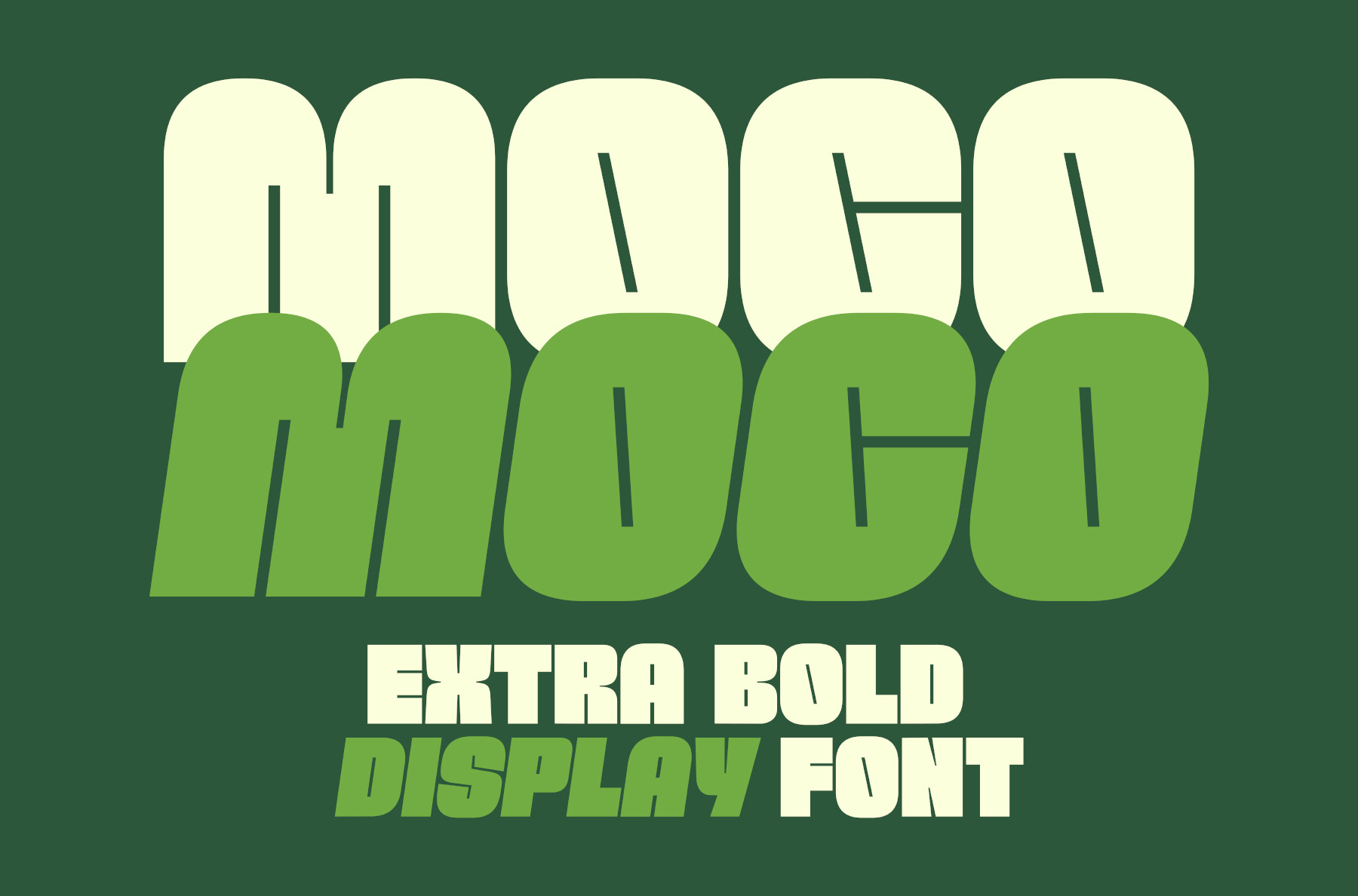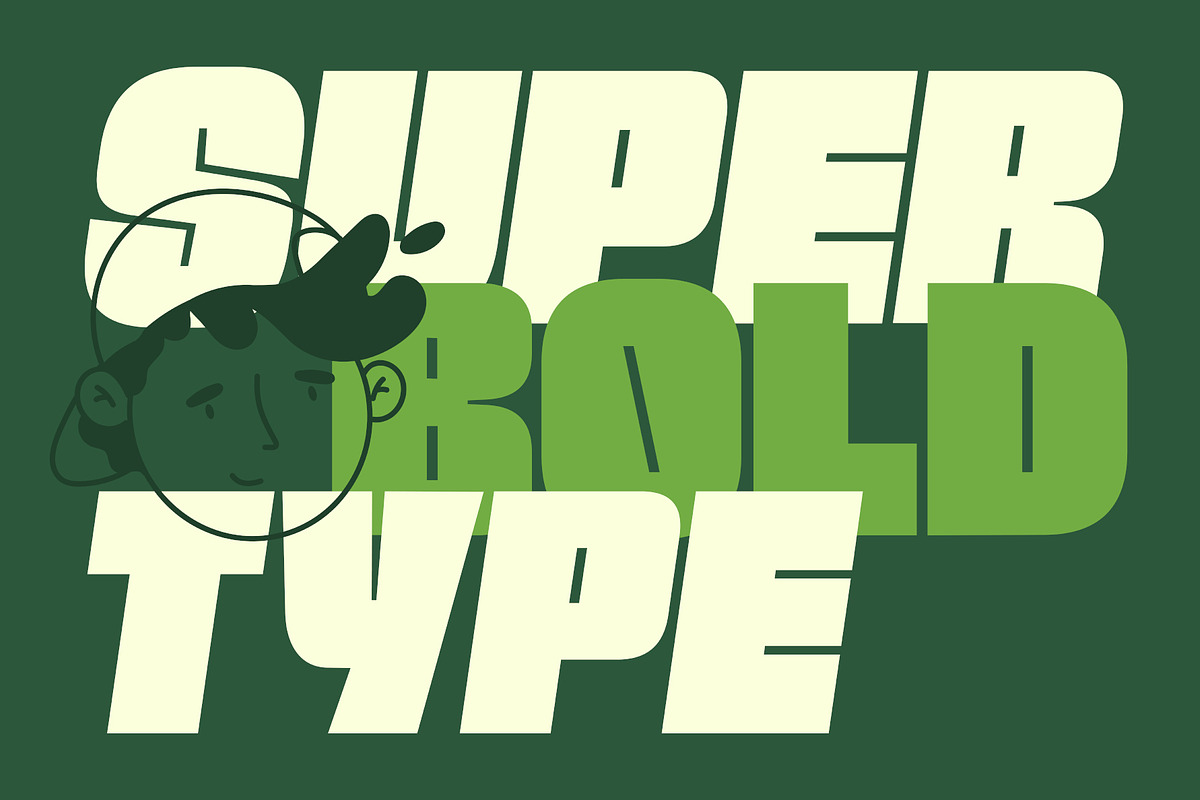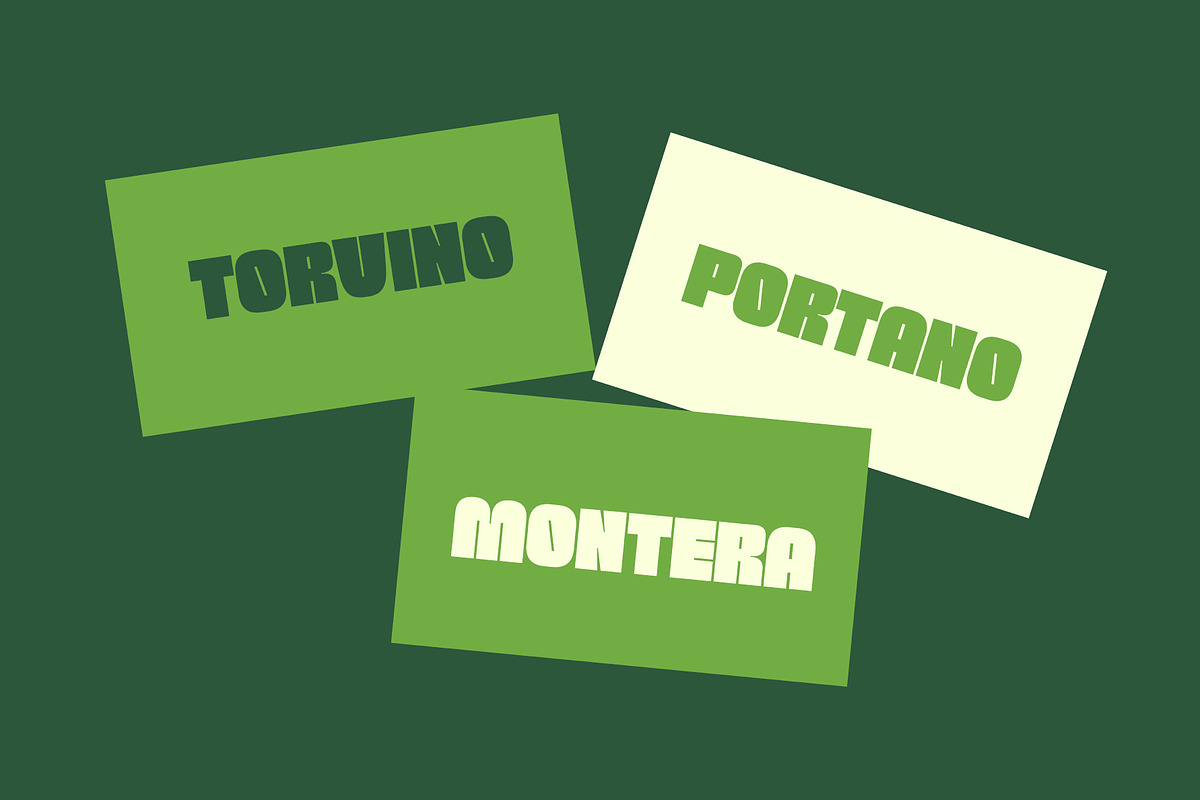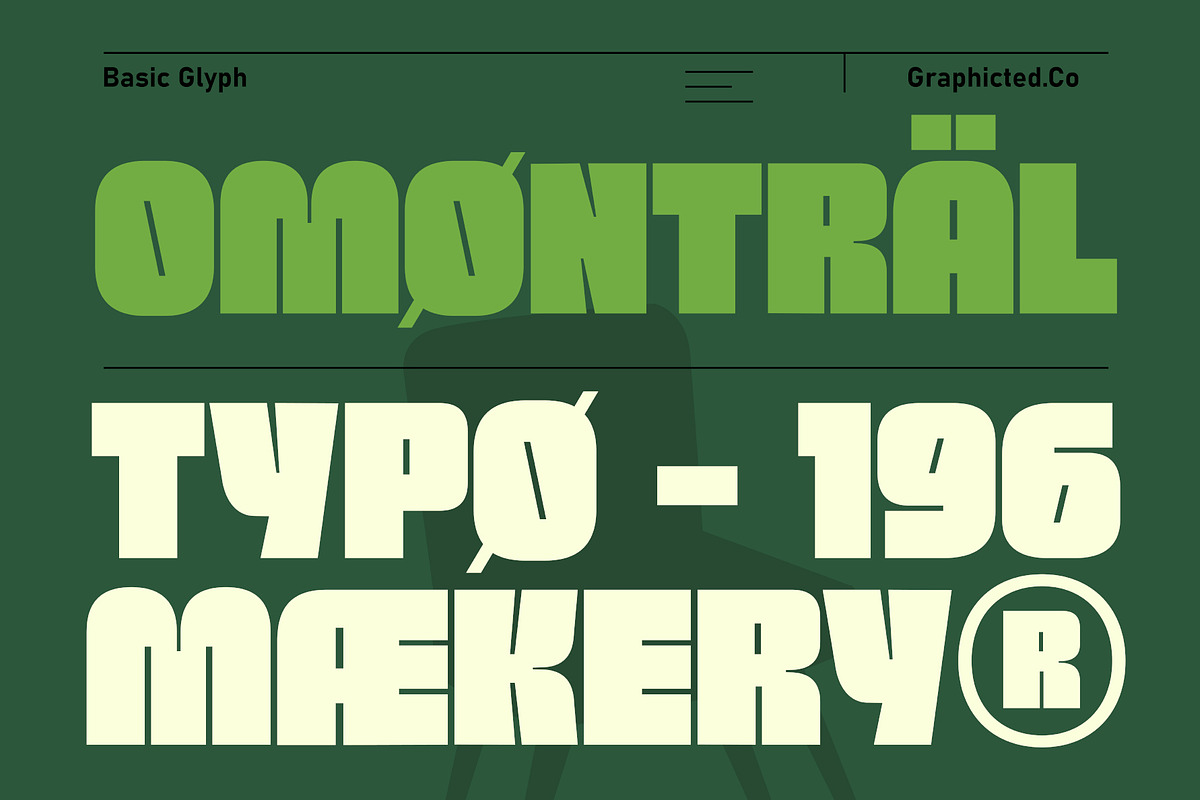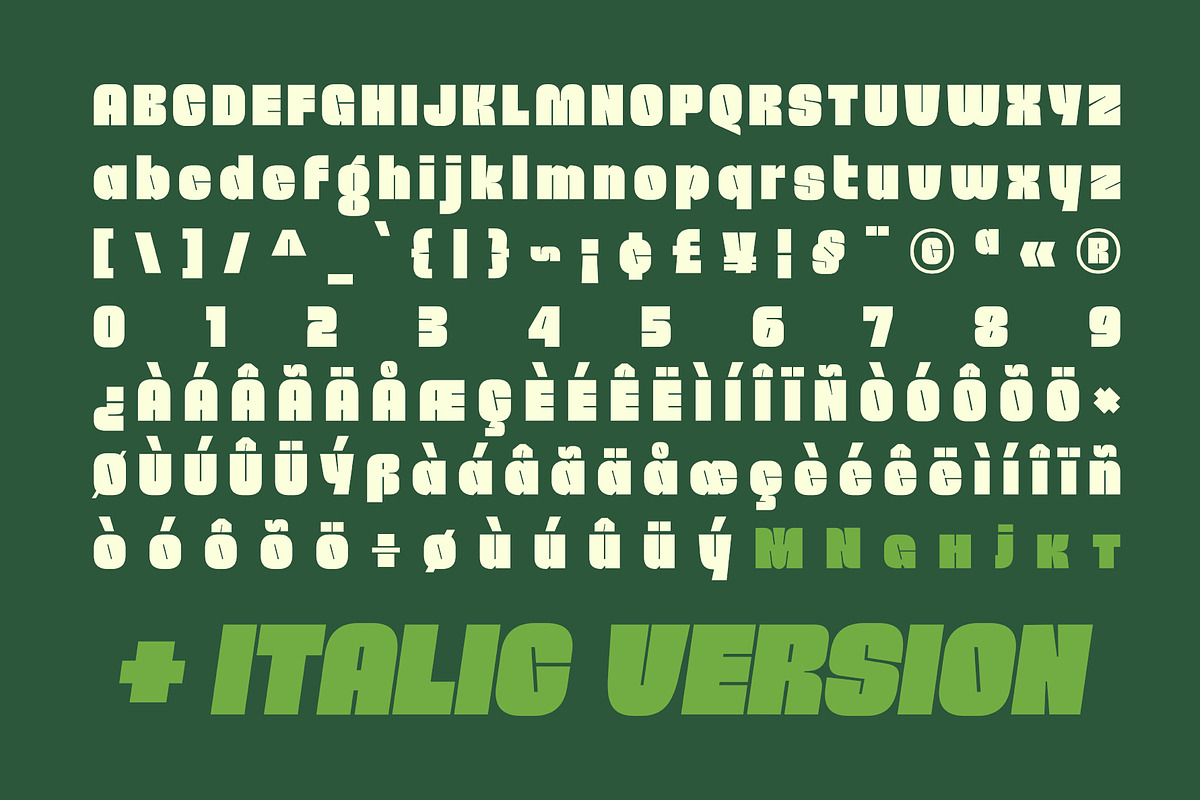
Moco - Extra Bold Display Font
Introducing Moco, an extra bold display font designed to make your words stand out with strength and personality. Available in two styles — Regular and Italic, Moco brings a modern-retro charm that blends smooth rounded edges with solid geometric shapes.
Perfect for logos, posters, headlines, packaging, and branding, Moco delivers a confident, stylish tone that captures attention instantly.
Whether you’re creating a fun visual identity or a striking title design, Moco gives your project boldness, balance, and character.
- Regular & Italic versions
- Full uppercase & lowercase
- Numbers, punctuation & multilingual support
Give your design a bold, expressive look with Moco – Extra Bold Display Font!